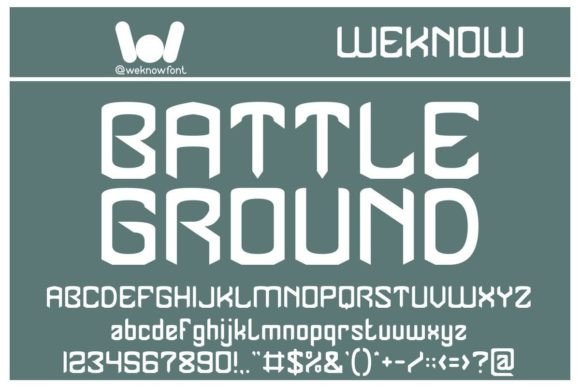
Introducing Battle Ground, the electrifying display font that will ignite your designs with raw power. Inspired by the captivating allure of movie posters, Battle Ground's Gothic-themed aesthetic commands attention with a bold and riveting style.
Crafted by the renowned weknow, Battle Ground is your secret weapon for creating unforgettable logos, logotypes, and headlines that will stop viewers in their tracks. Whether you're designing for an apparel line, a gripping movie poster, or a dynamic website, Battle Ground's versatility knows no bounds.
Prepare to unleash your creativity as you delve into the world of Battle Ground. Its sharp angles and captivating form exude an air of authority, making it ideal for corporate identities and brand identities. Embrace the power of Battle Ground and watch your designs rise above the ordinary, leaving a lasting impression on your audience.